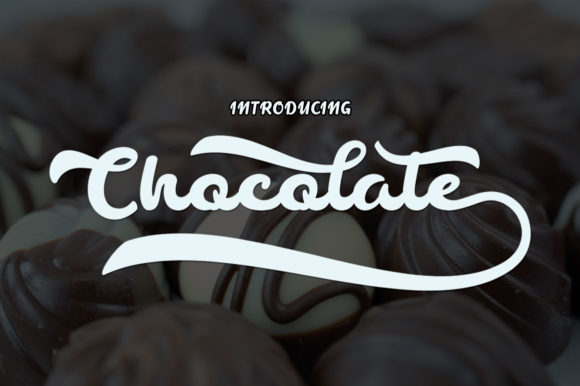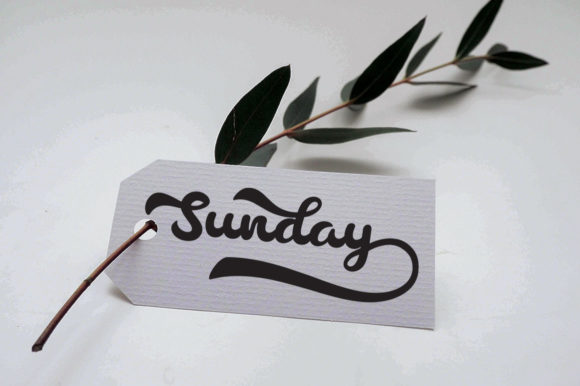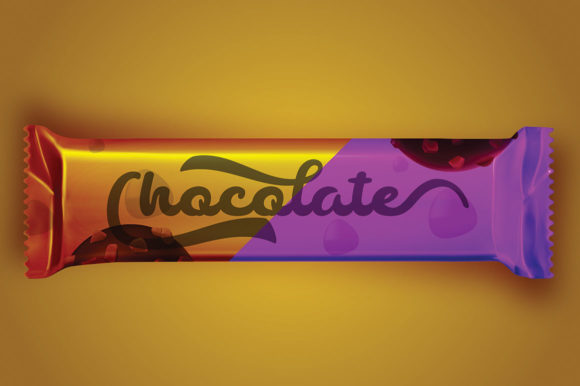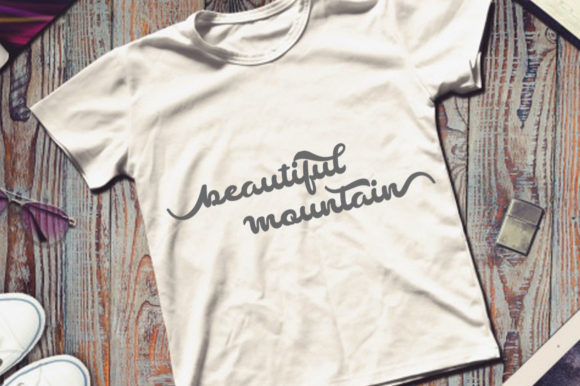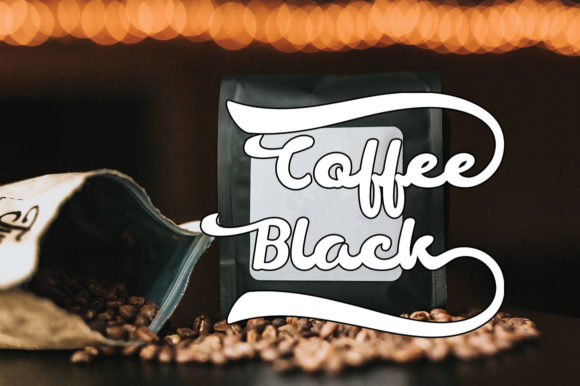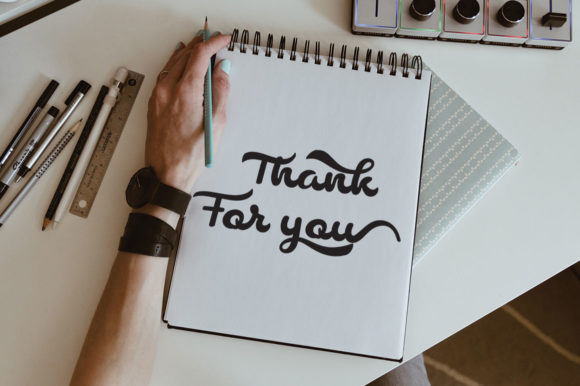
Chocolate Font
About Chocolate Font
The Chocolate is a fresh and modern calligraphy script. It includes decorative characters with a dancing linage and is perfect for invitations, greeting cards, branding material, business cards, quotes, posters, and much more!